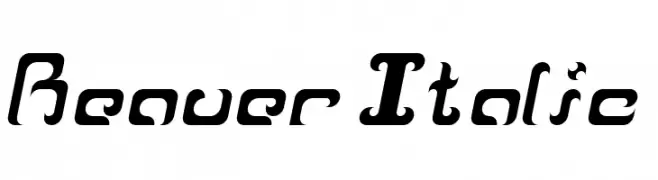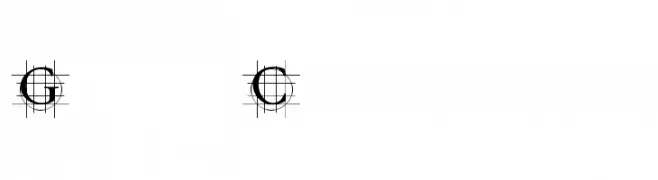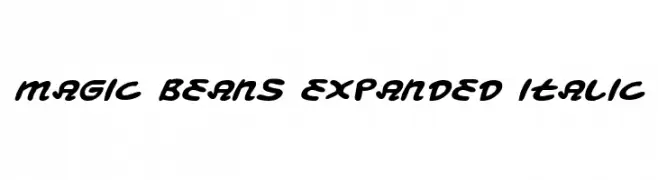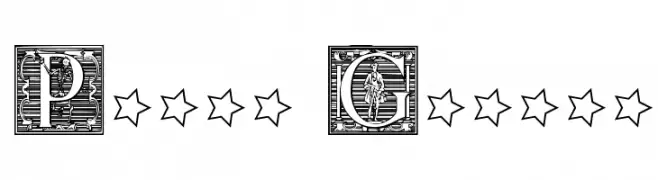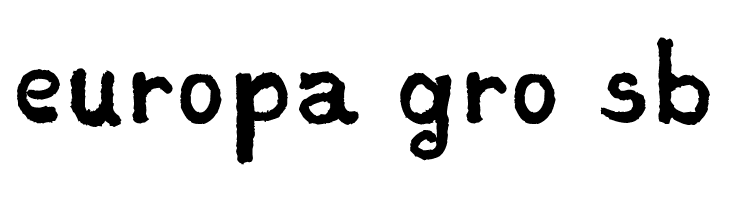
An ornate, illustrated font with each letter framed in a vintage-style square.
A bold, adventurous font with a rugged, hand-drawn appearance.
A bold, hand-drawn font with a rugged, vintage feel.
A geometric, technical display font with a blueprint-like design.
A bold, italic, and expanded font with a playful, handwritten style.
An ornate, decorative font with intricate floral patterns in each letter.
A bold, italicized font with sharp angles and a dynamic, modern style.